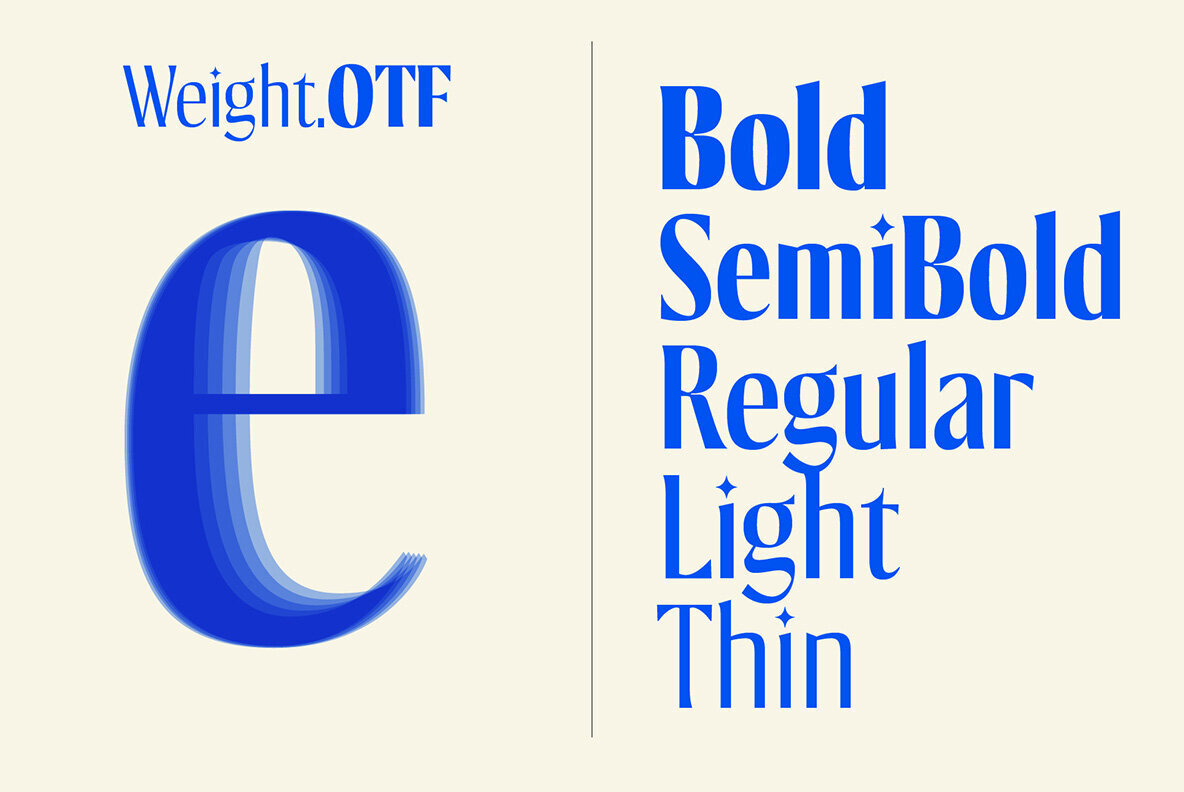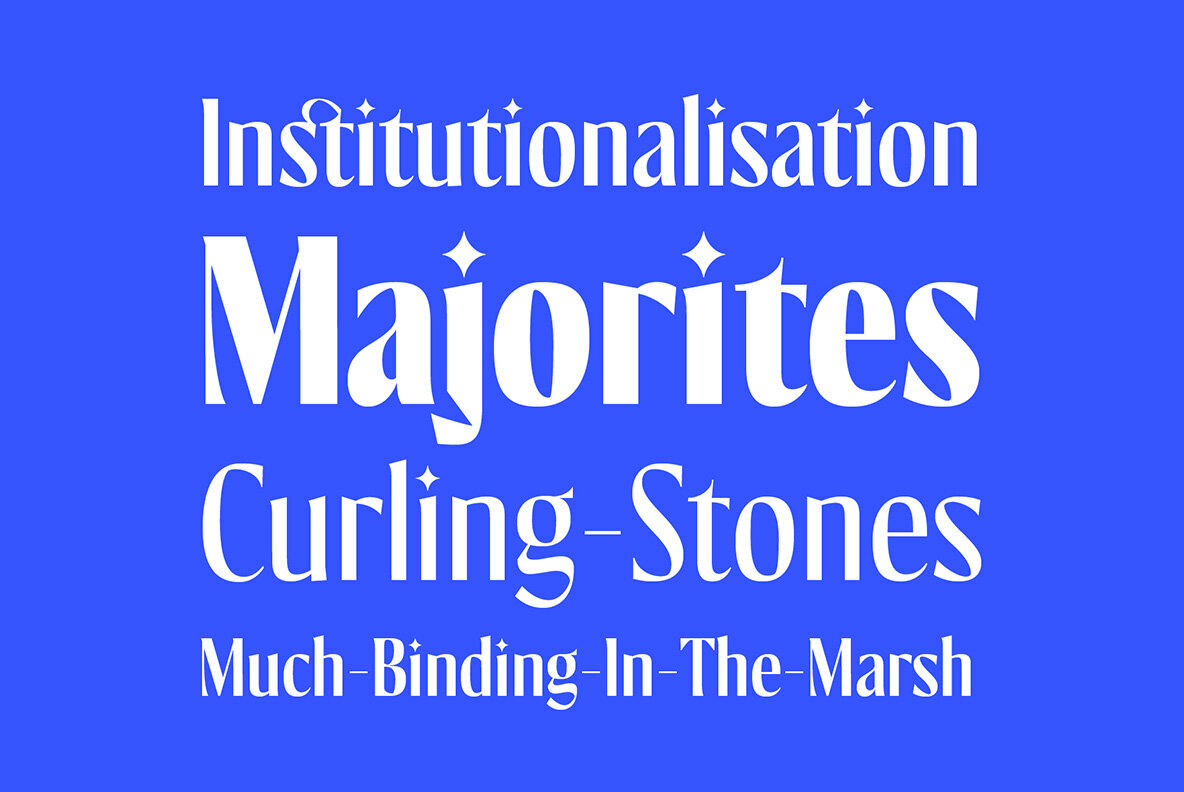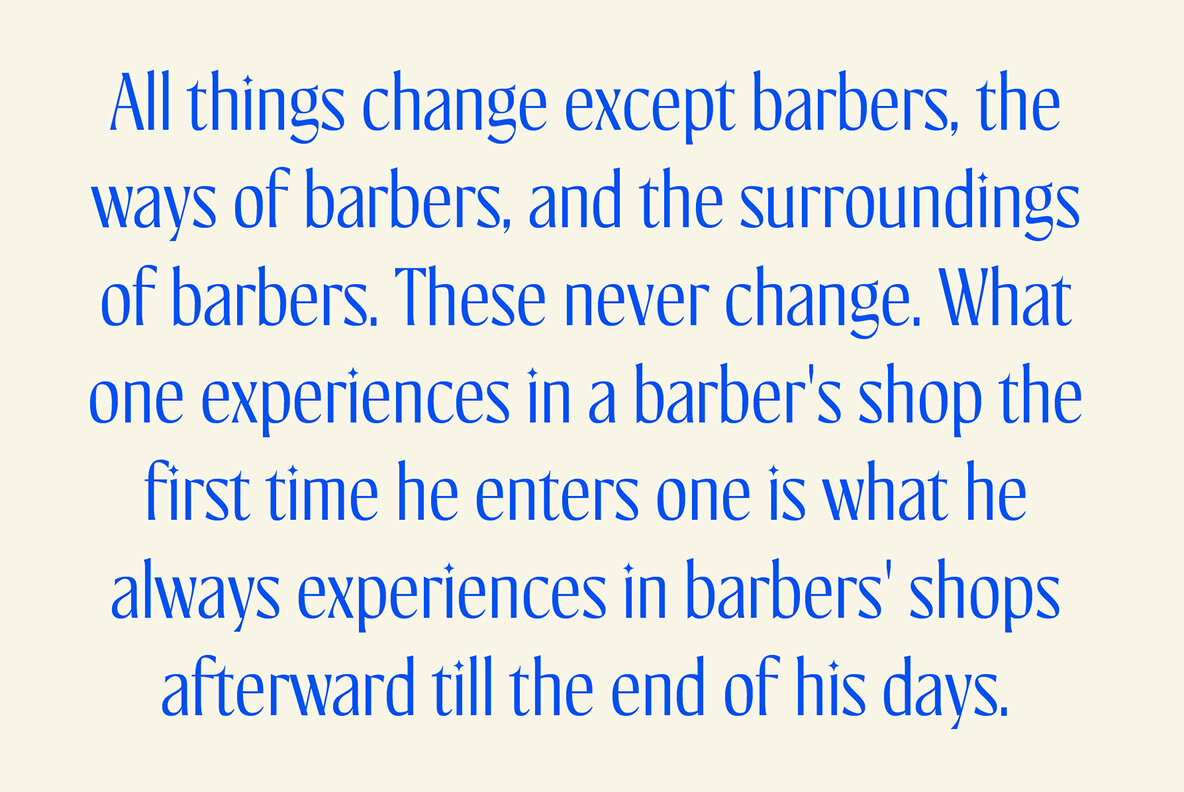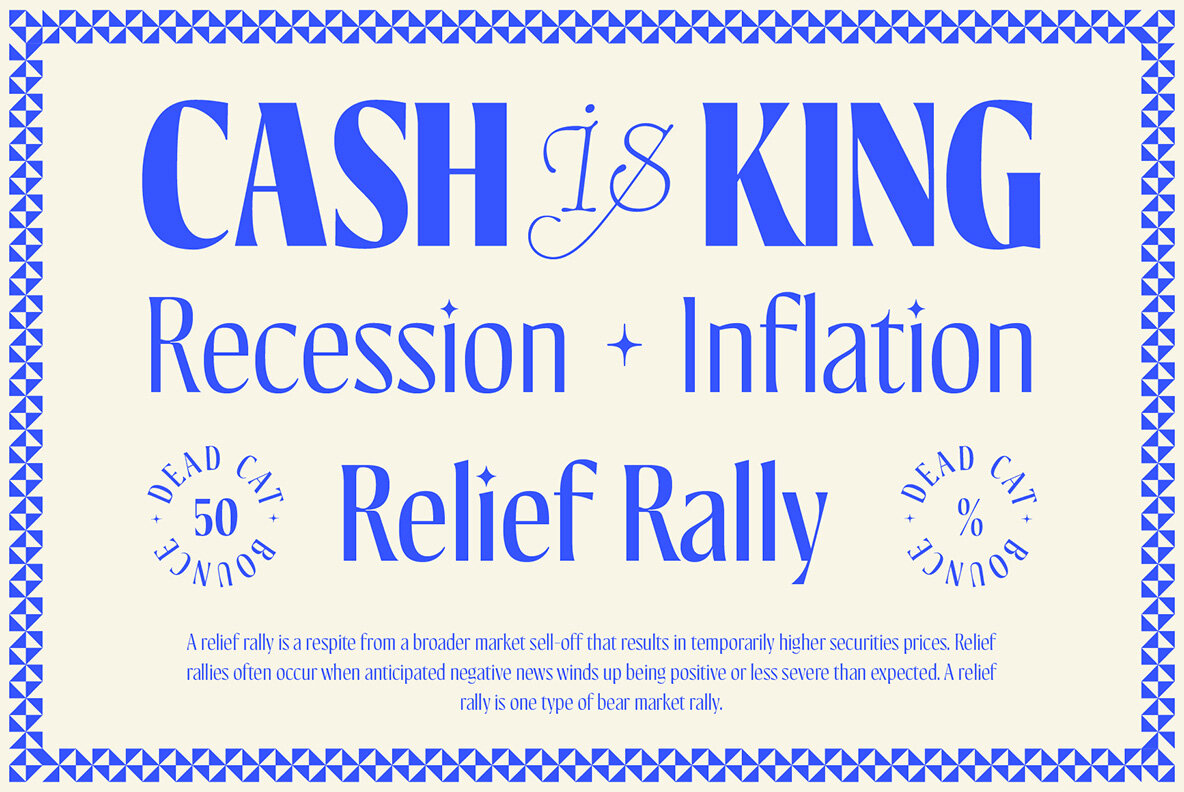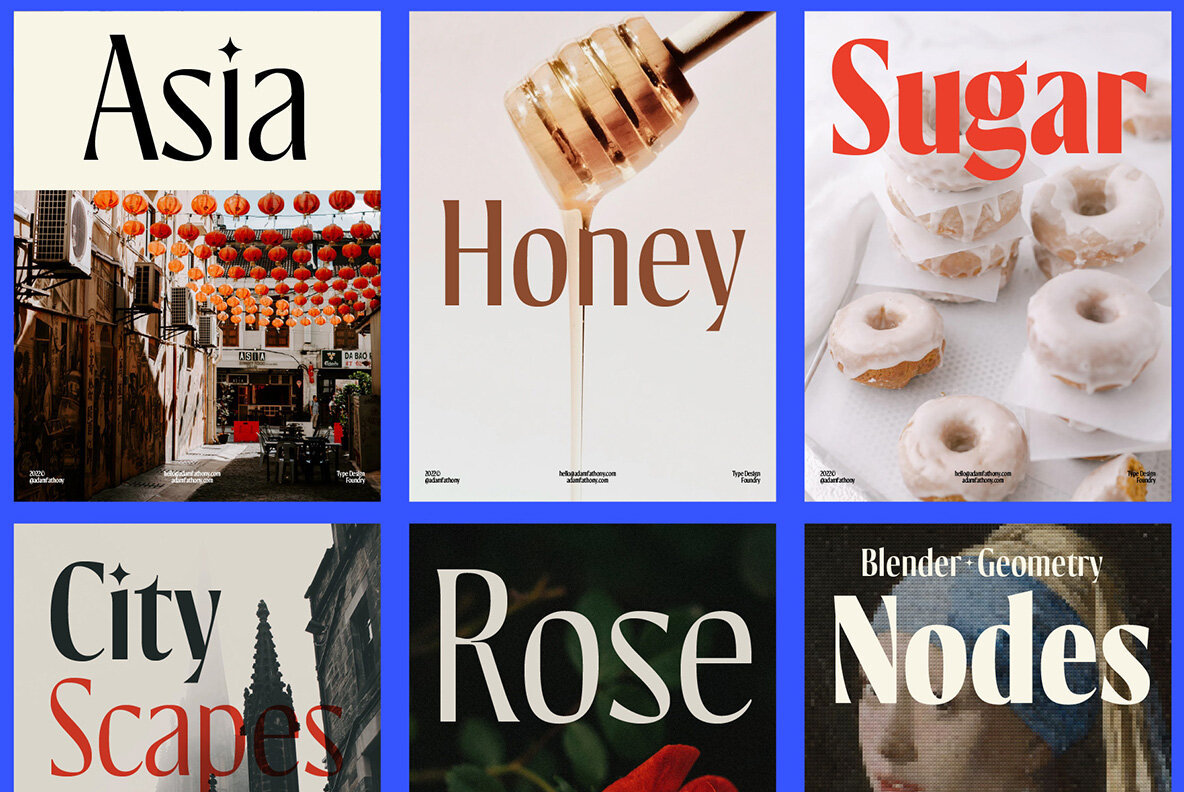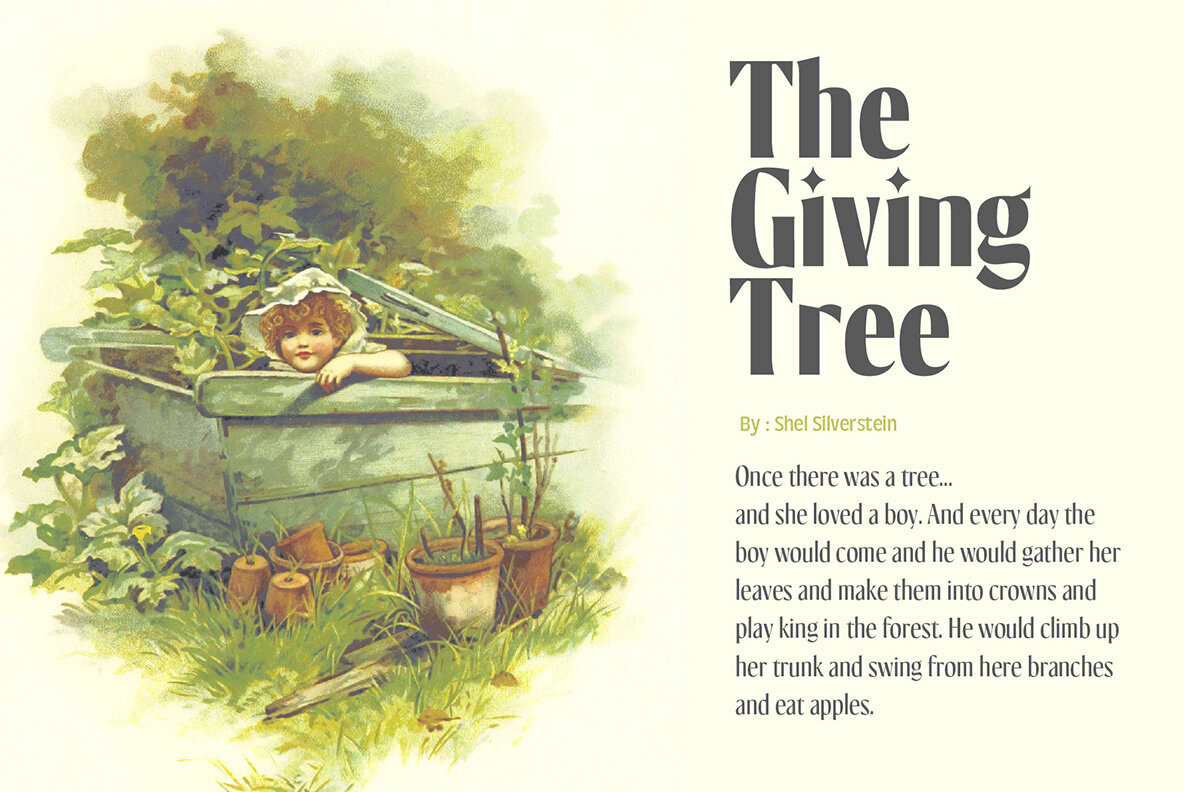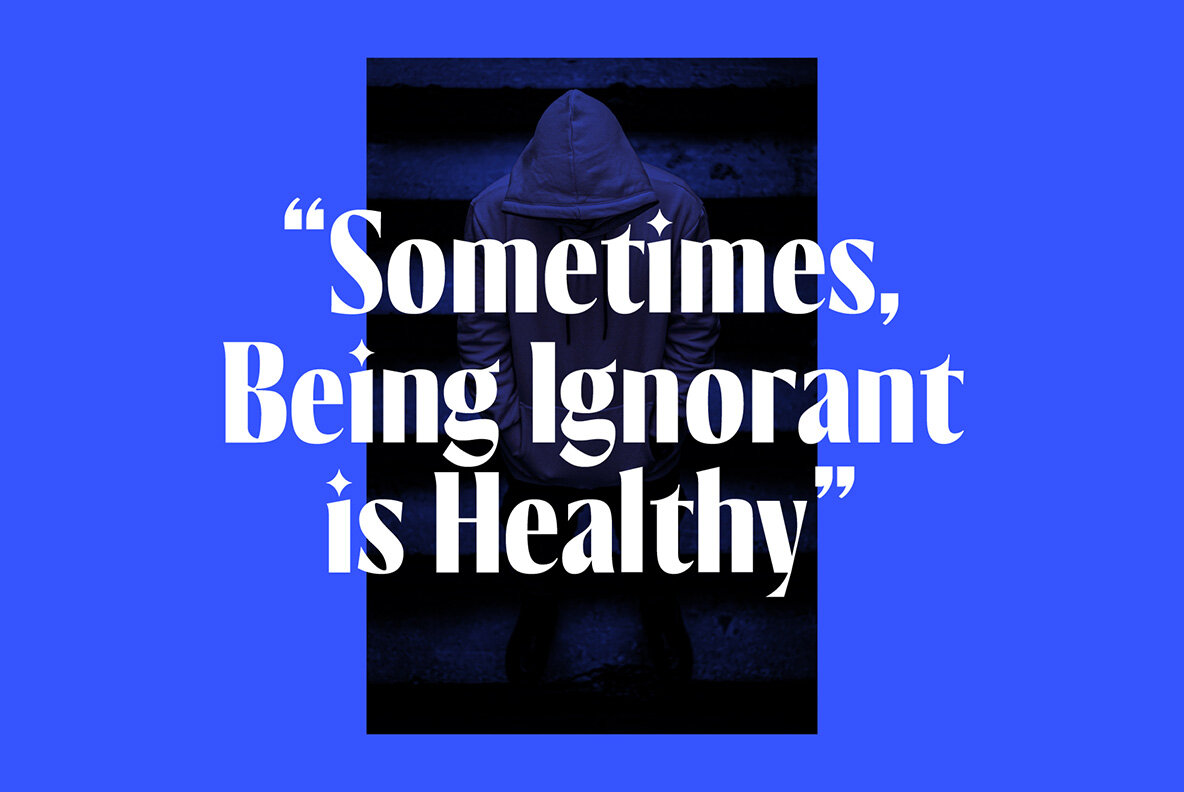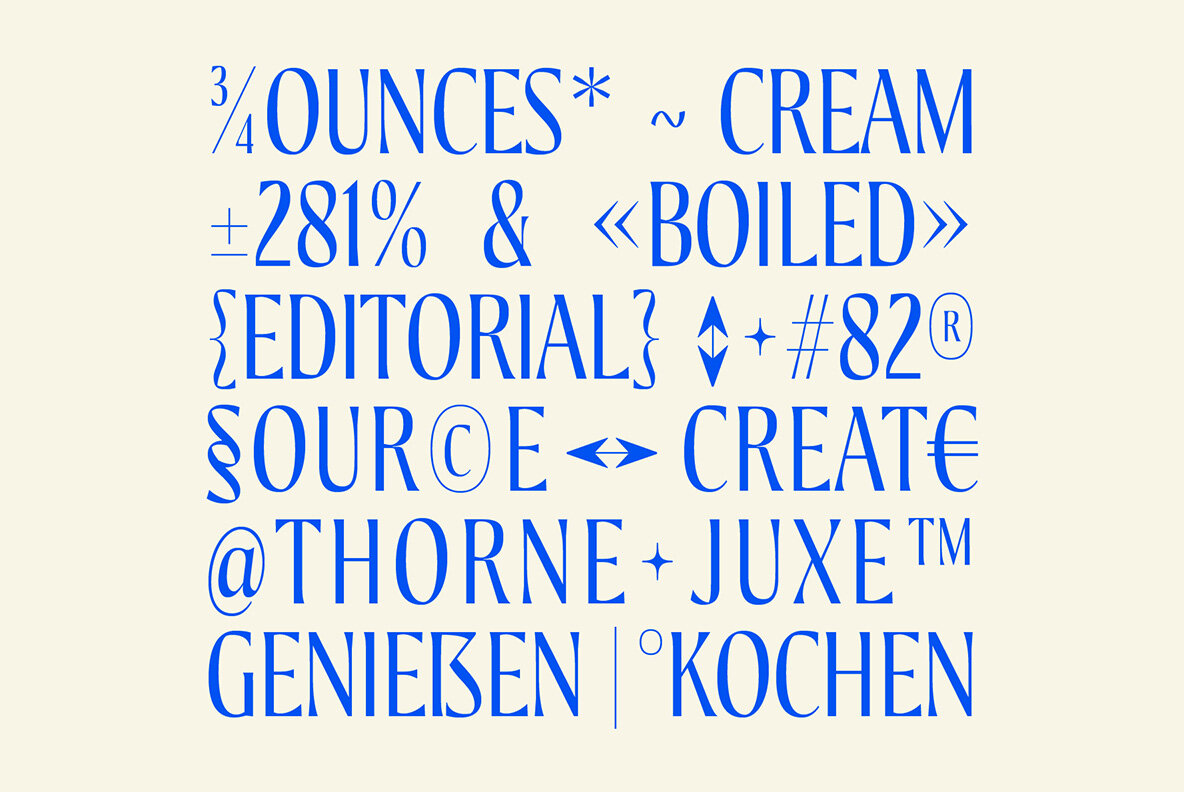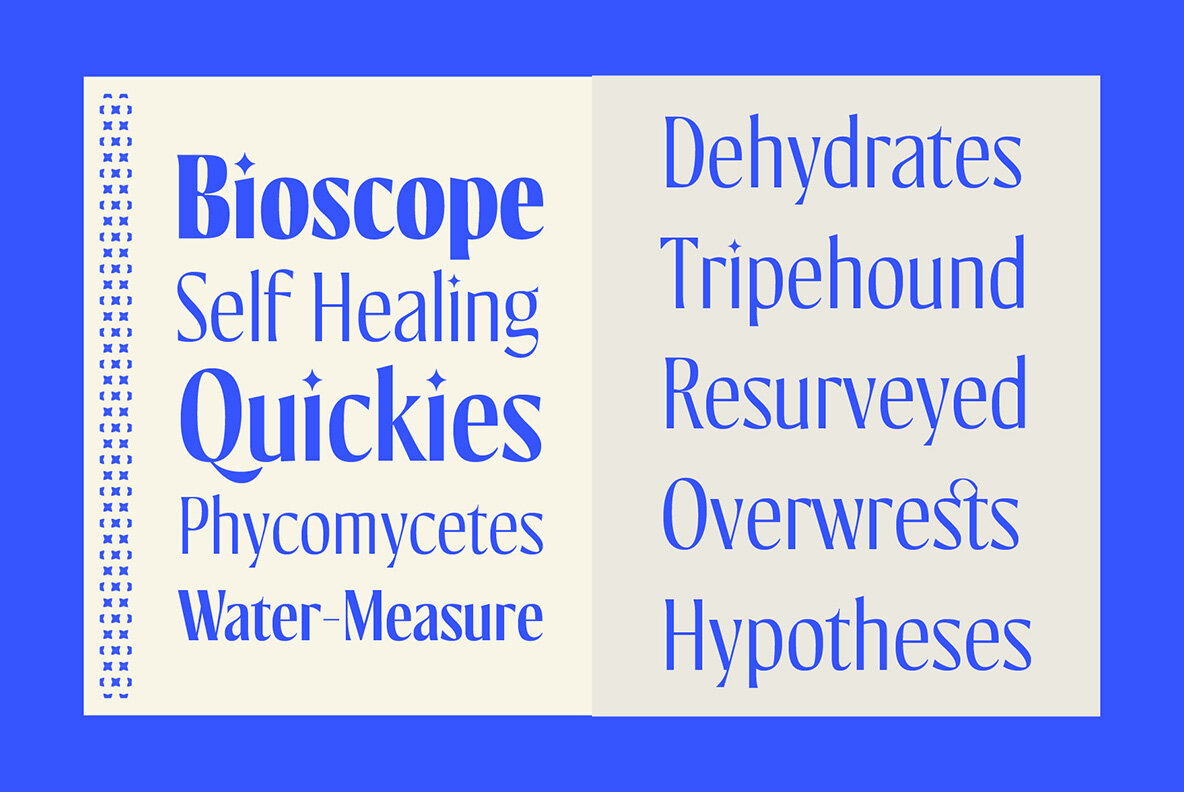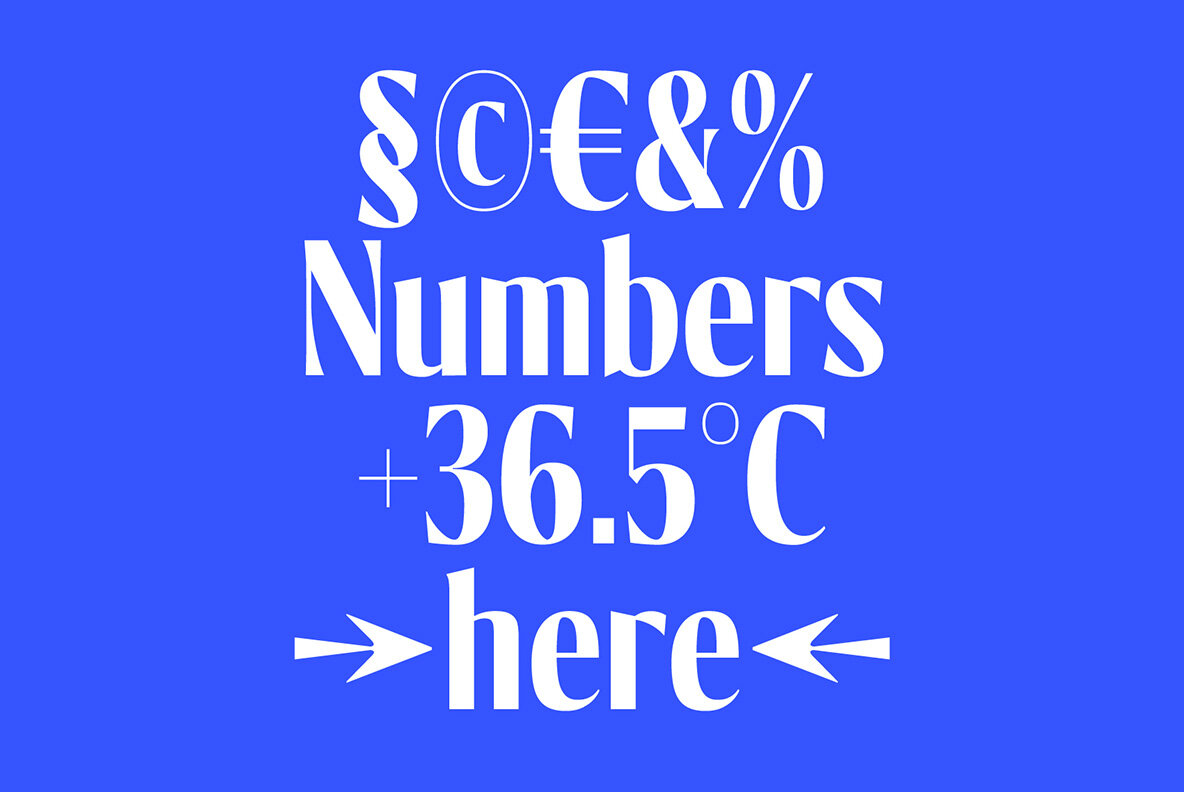
Kiester Font
Kiester is a modern and elegant variable font. It has various widths that can be explored to create the perfect design for you, such as posters or headlines. In total there are 5 styles (OTF files included).
- Edited the characters to be more flawless with others
- Sharp fractures changed to be more rounded and flowing
- Changing the uppercase letter R,K, matching with others
- Dot on letter i and j changed from diamond to star
- Better kerning, and so much more another detail change